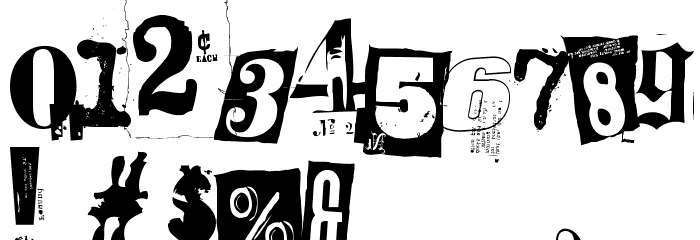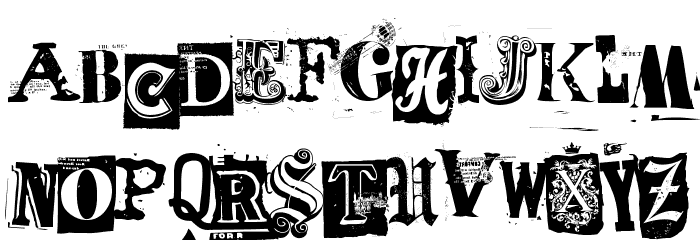
Freakshow Font
This font is a bold and eclectic display typeface that combines elements of vintage circus and carnival posters with a modern twist. Each character is uniquely designed, featuring intricate patterns, flourishes, and varying line weights that create a sense of movement and excitement. The uppercase letters are particularly elaborate, with some incorporating shadow effects and decorative elements that evoke a sense of nostalgia. The numbers and special characters maintain this whimsical style, ensuring consistency across the typeface. This font is perfect for projects that require a touch of drama and flair, making it ideal for eye-catching headlines and artistic designs.
A bold, eclectic display typeface inspired by vintage circus posters.
• Proposed Projects: Ideal for posters, event flyers, book covers, and branding that requires a dramatic and artistic touch.
• Category: Decorative/Display
• Bold: Yes
• Italic: No
• Weight: Bold
• Width: Normal
• Character Spacing: Normal
• Contrast: High
• Overall Style: Vintage, Decorative
• Use Case: Headlines, Logos, Posters